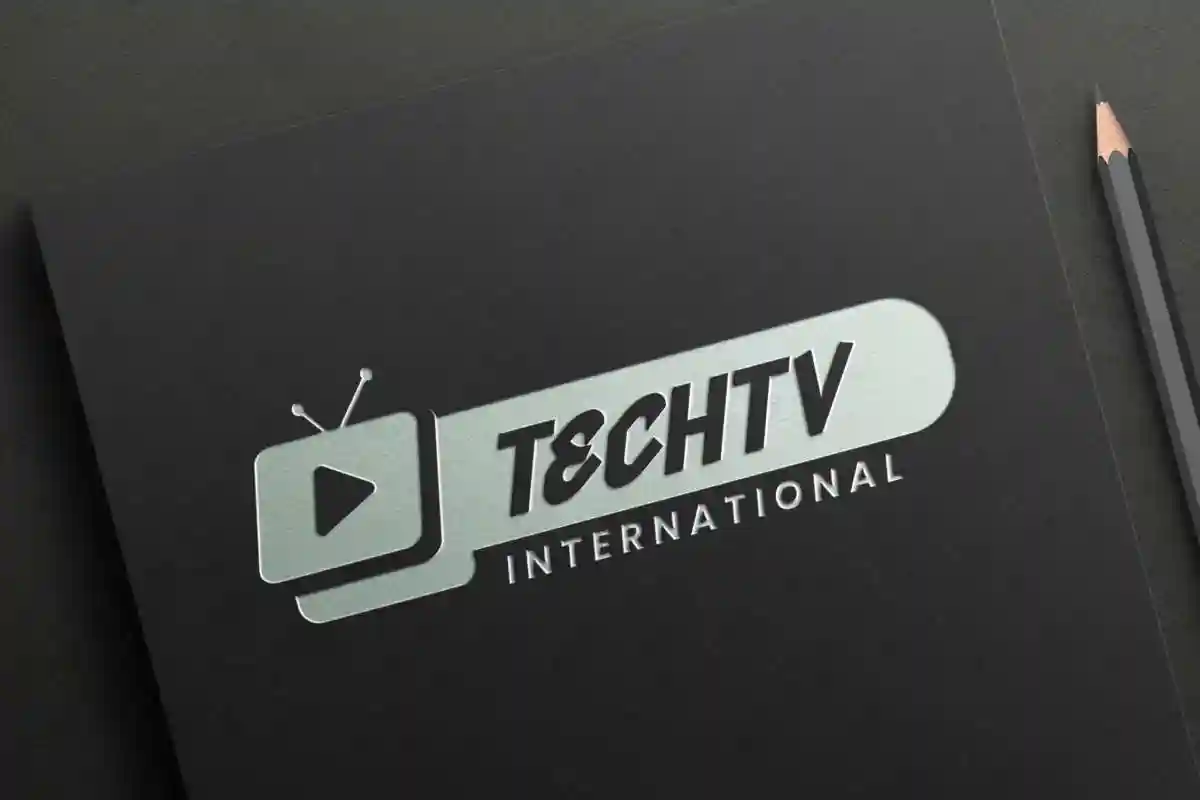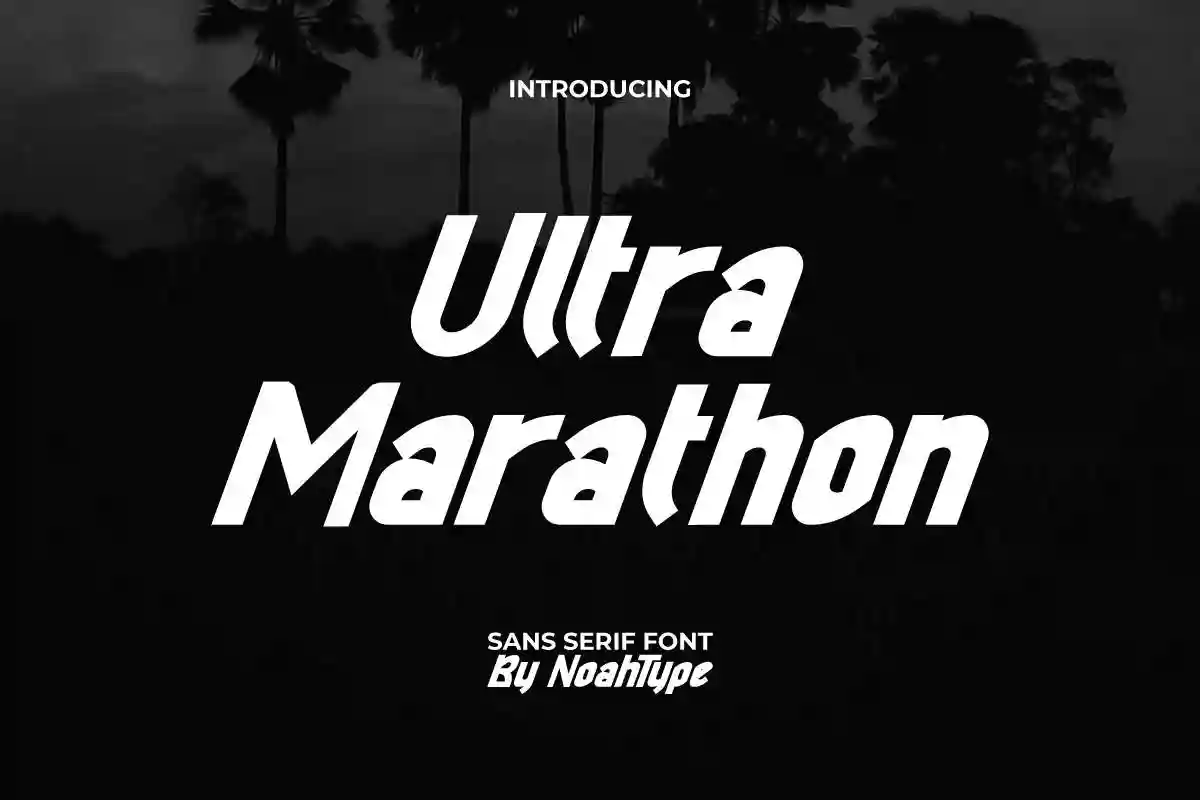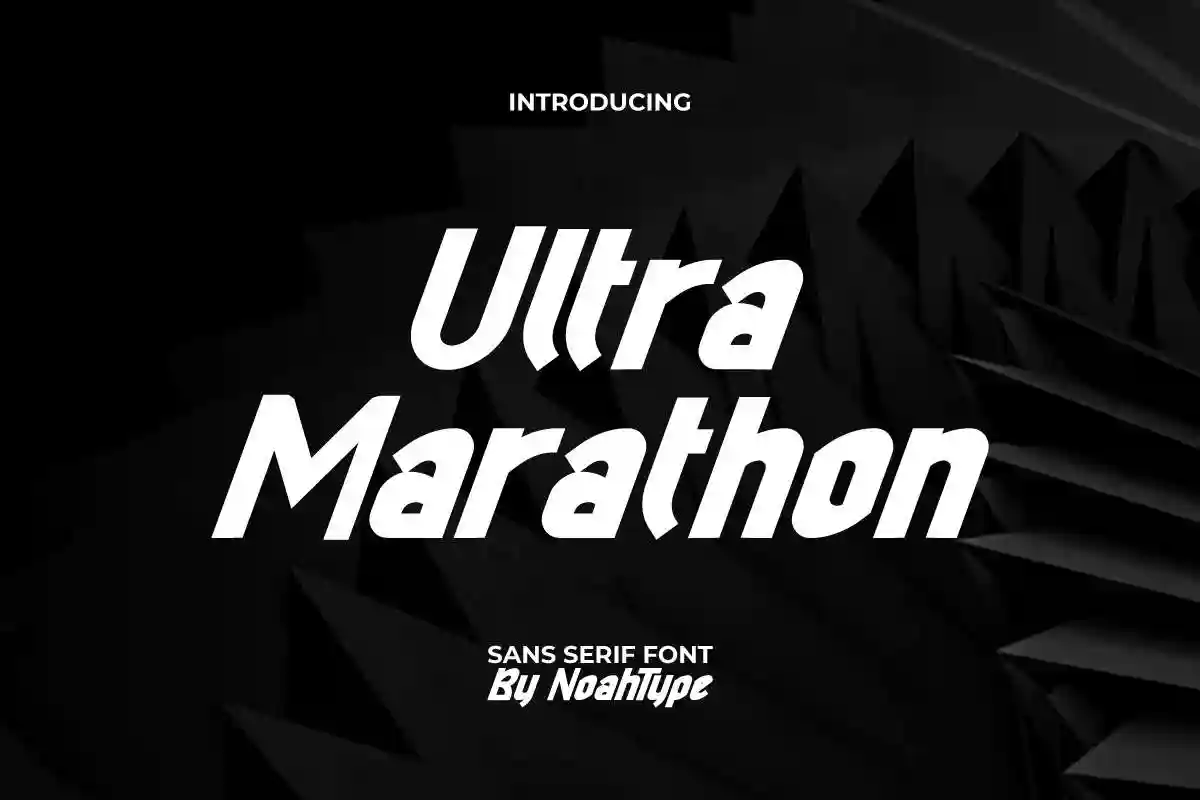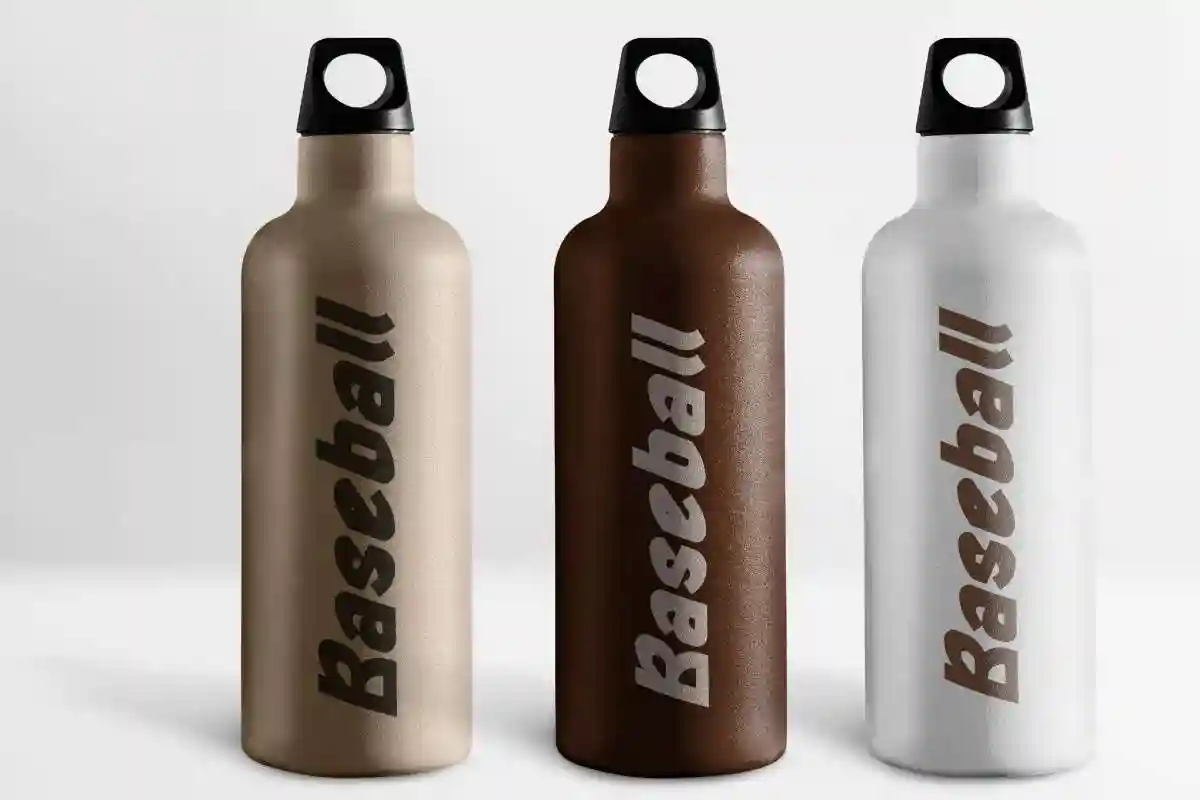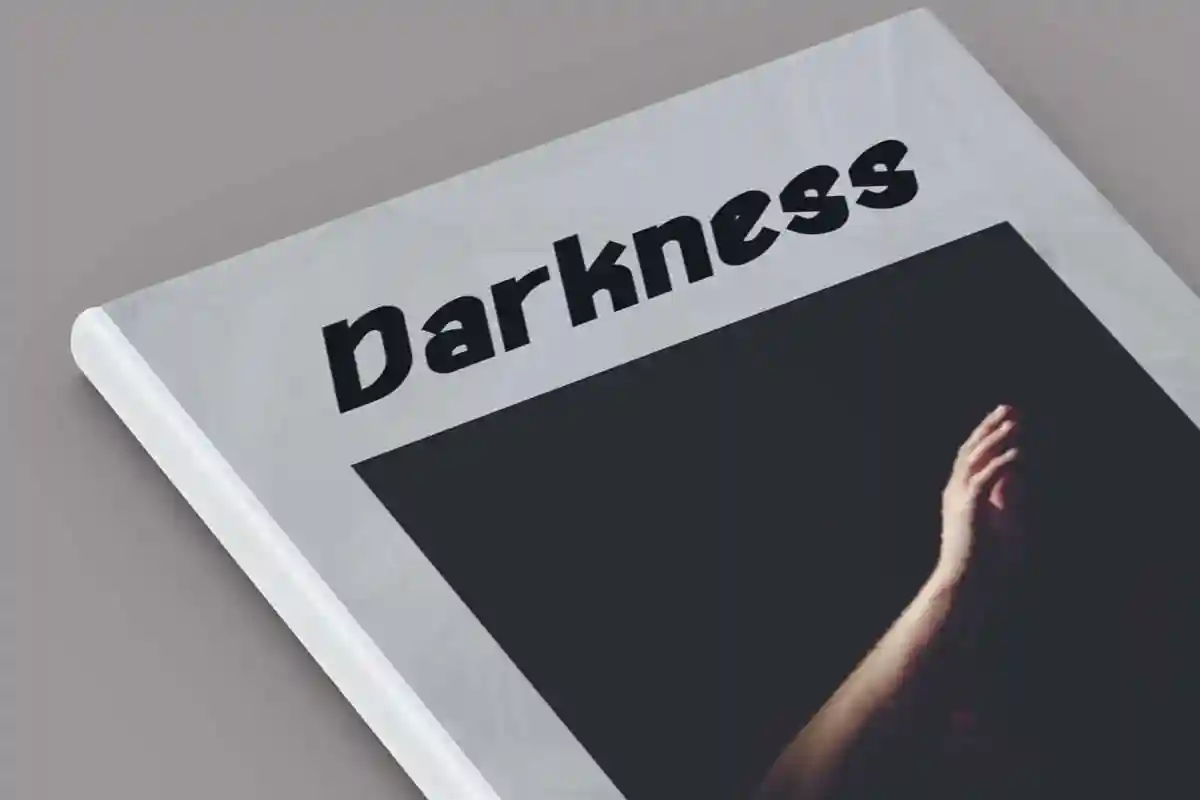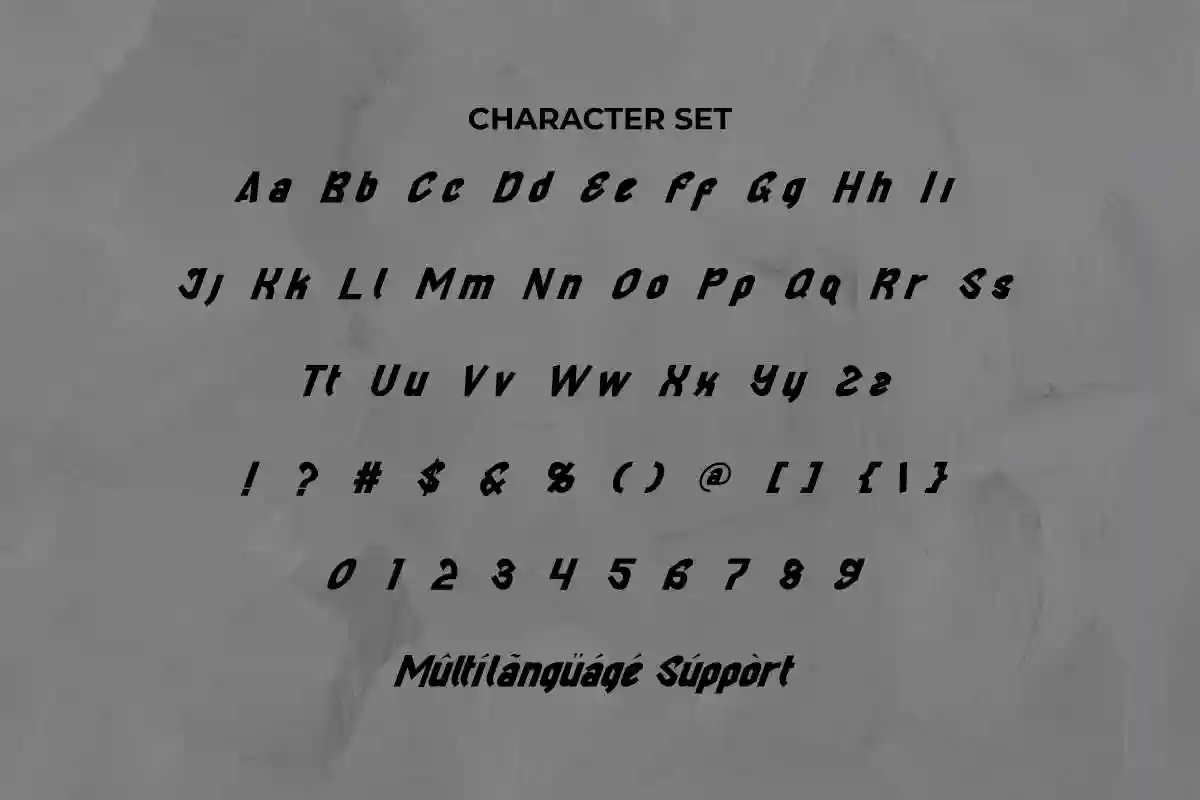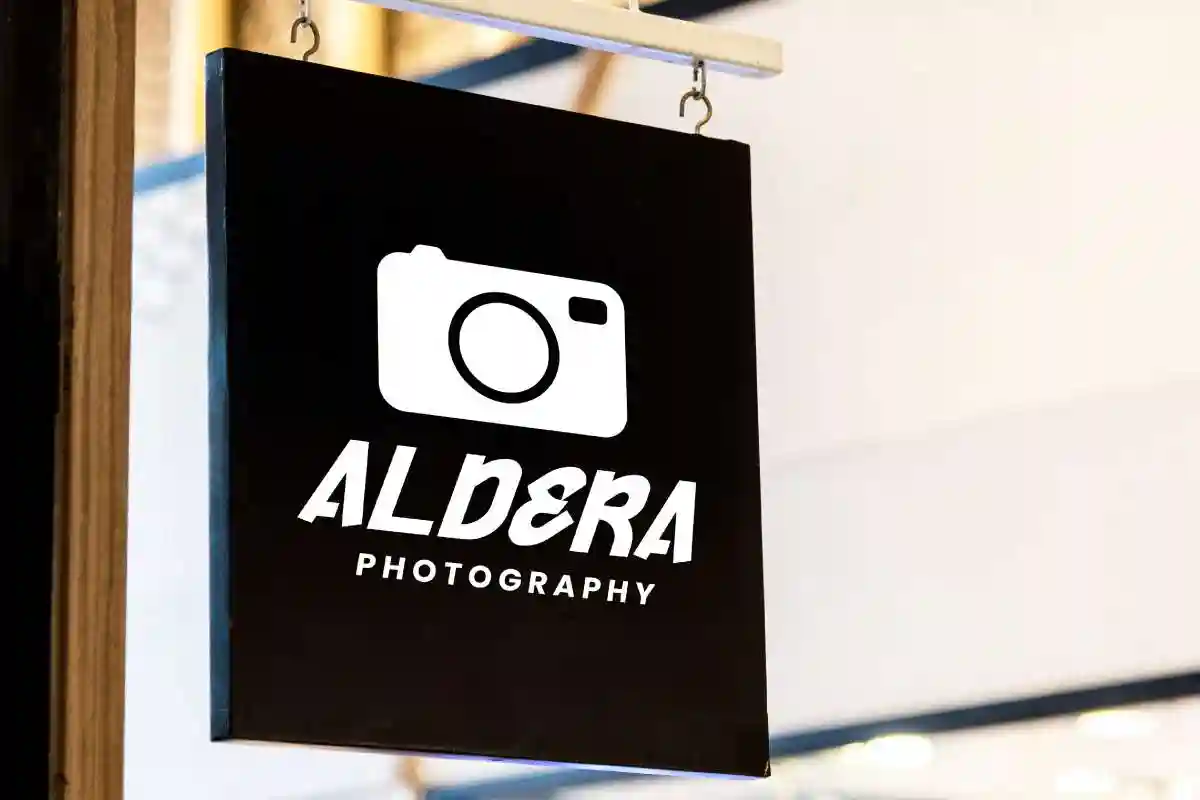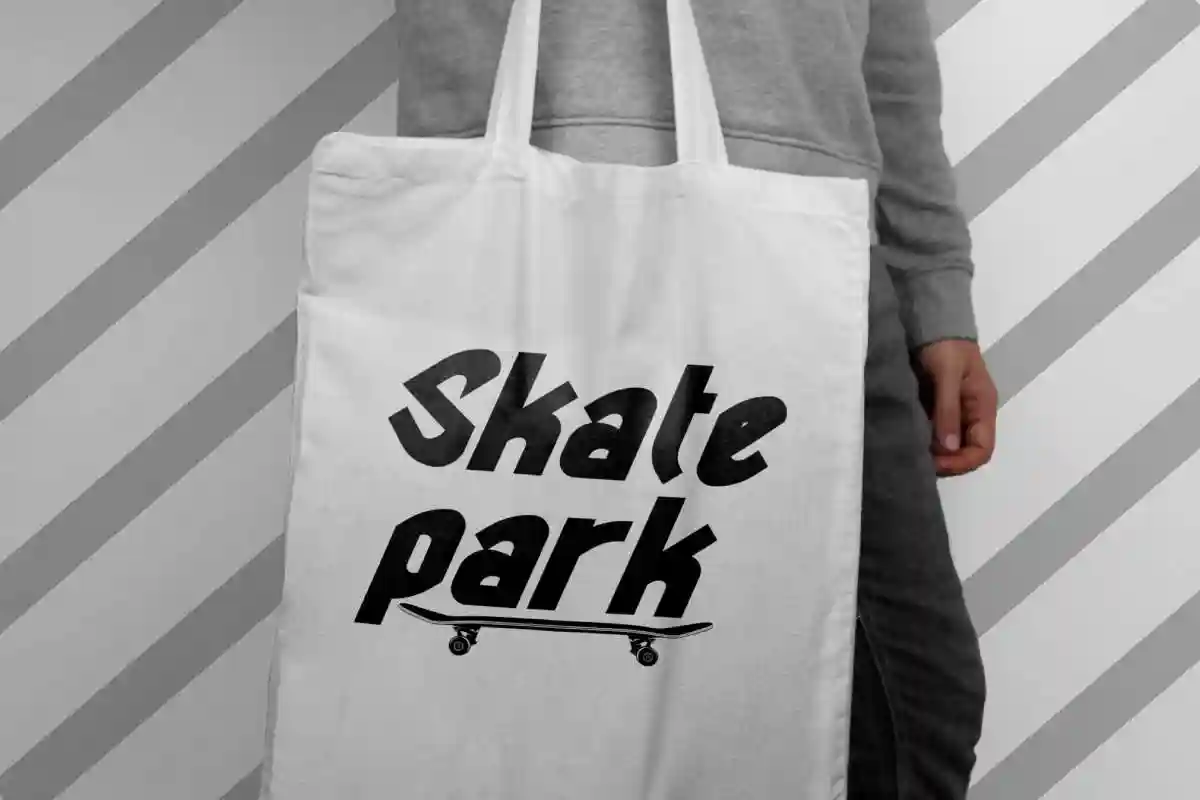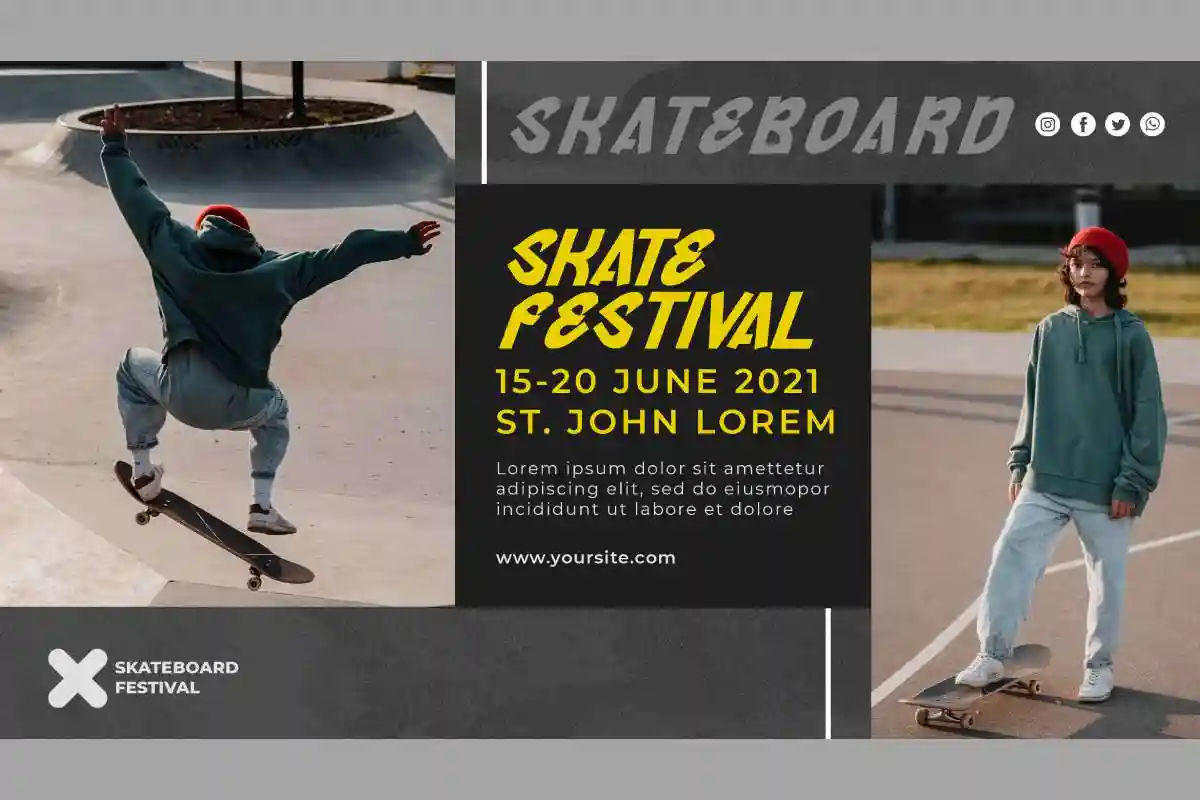
Ultra Marathon Font is a sport display font designed by NoahType Studio. This font is made for those of you who want a sporty impression on the design and more interesting! It would be perfect choice for many industries, such as accessories, advertisement, café, event organizer, fashion, furniture, handicrafts, printing, publishing, sport tools, and more!
Ultra Marathon Font include full set of Uppercase and Lowercase Basic Characters, Numerals, Punctuation, and Symbol. This font will carry an energy that steals the show and can be used in any designs, such as billboard, business card, custom design, label, magazine catalog, poster, signage, stationery, sticker, title, watermark, etc.